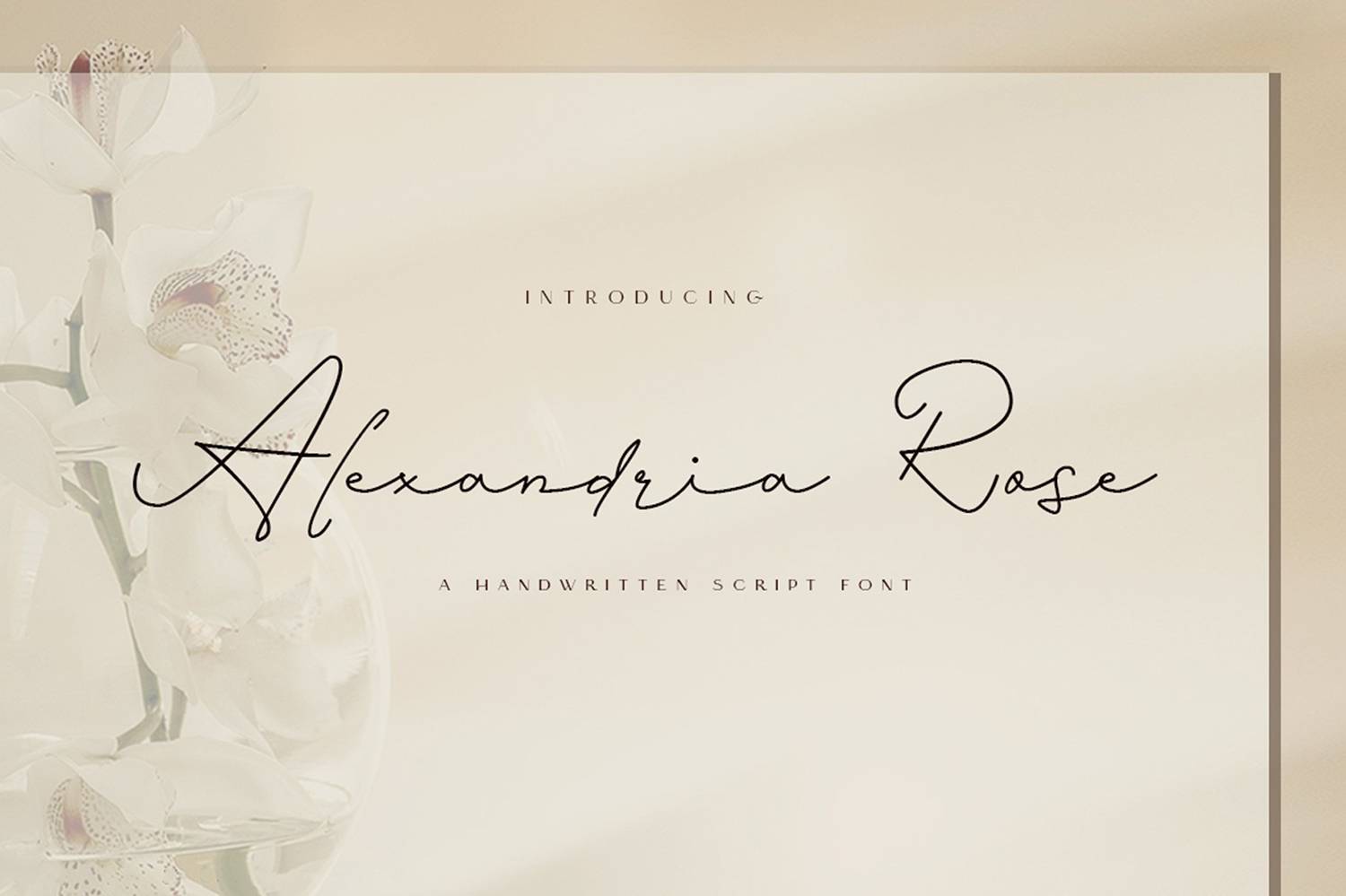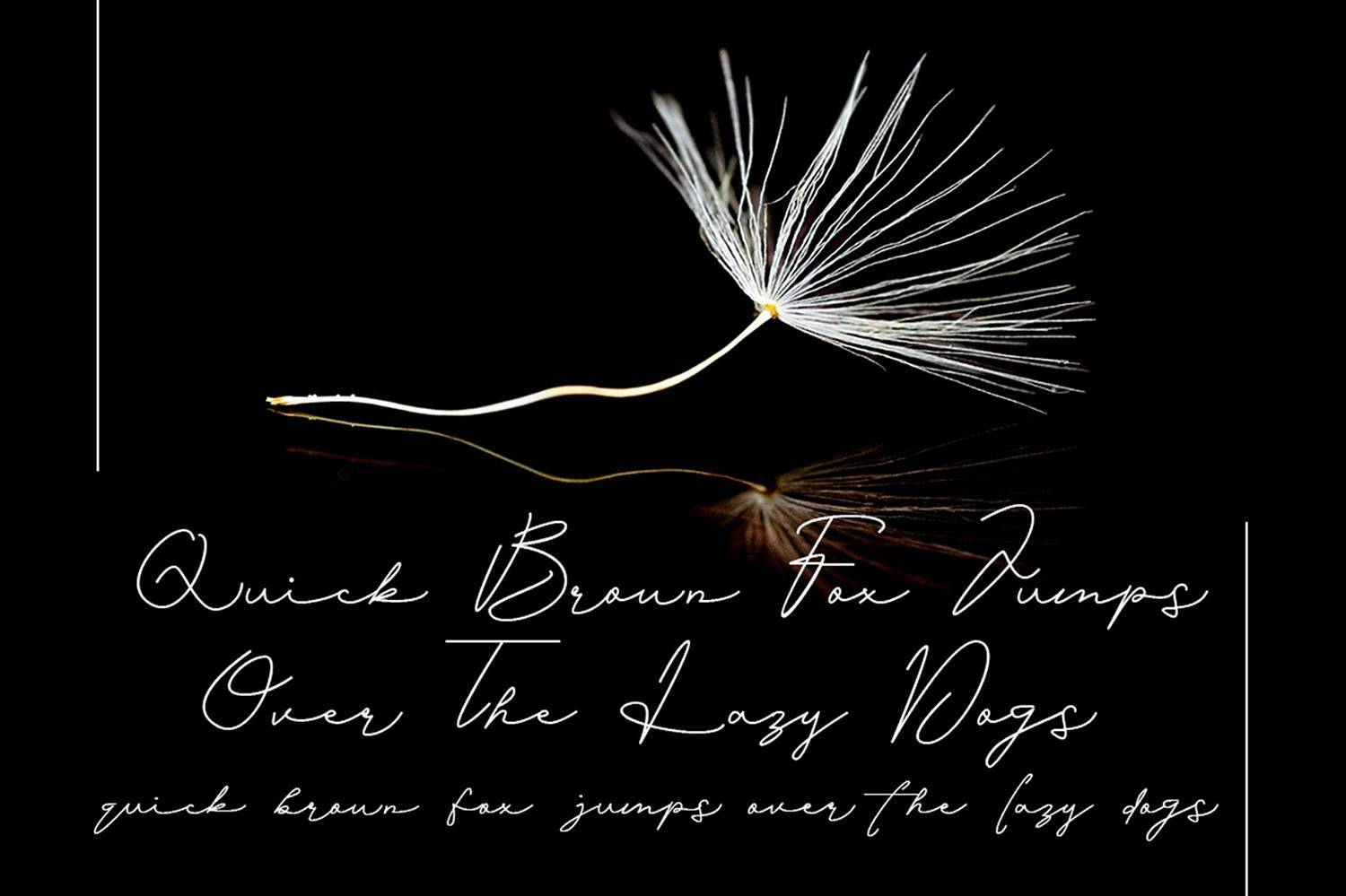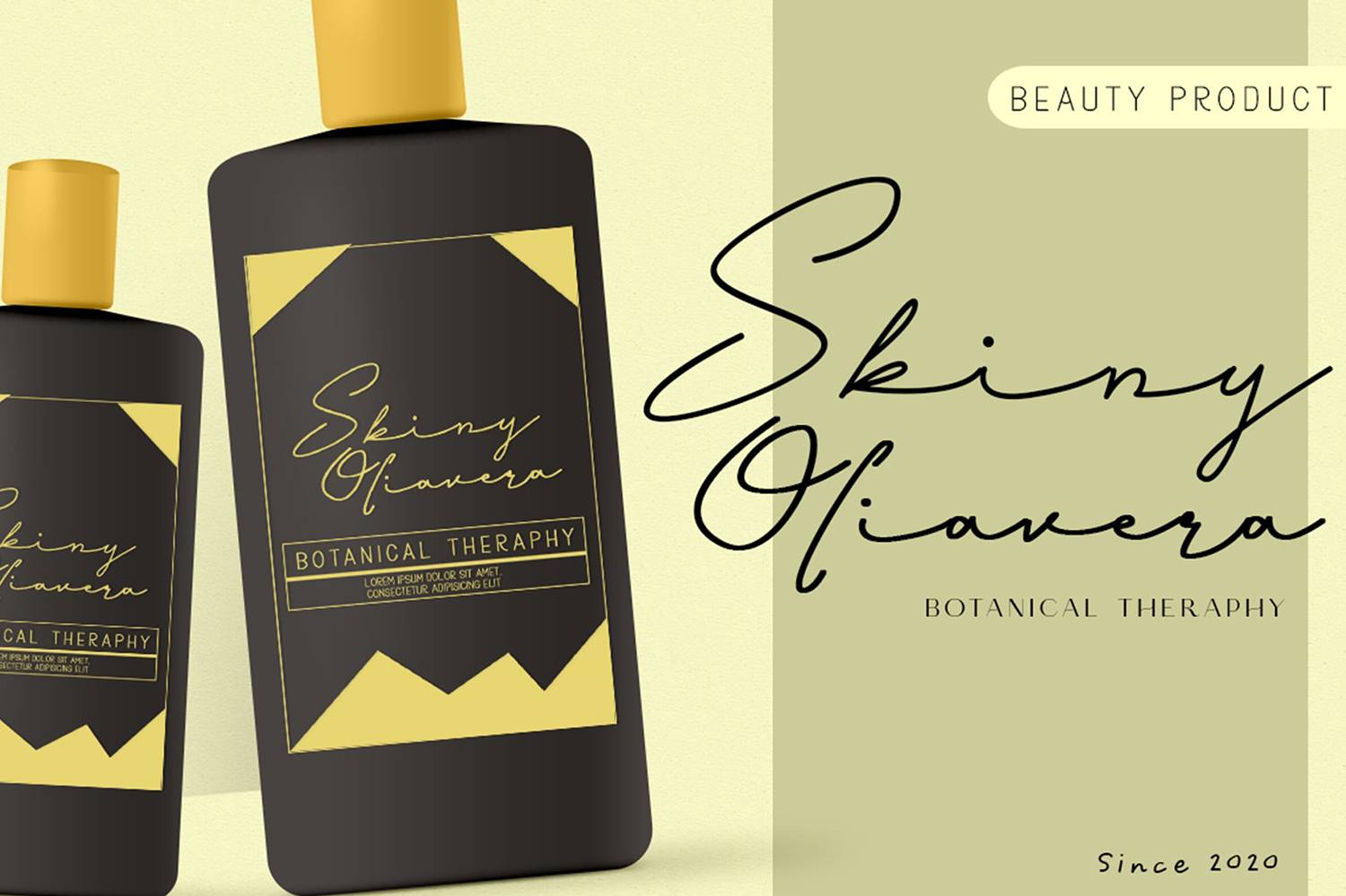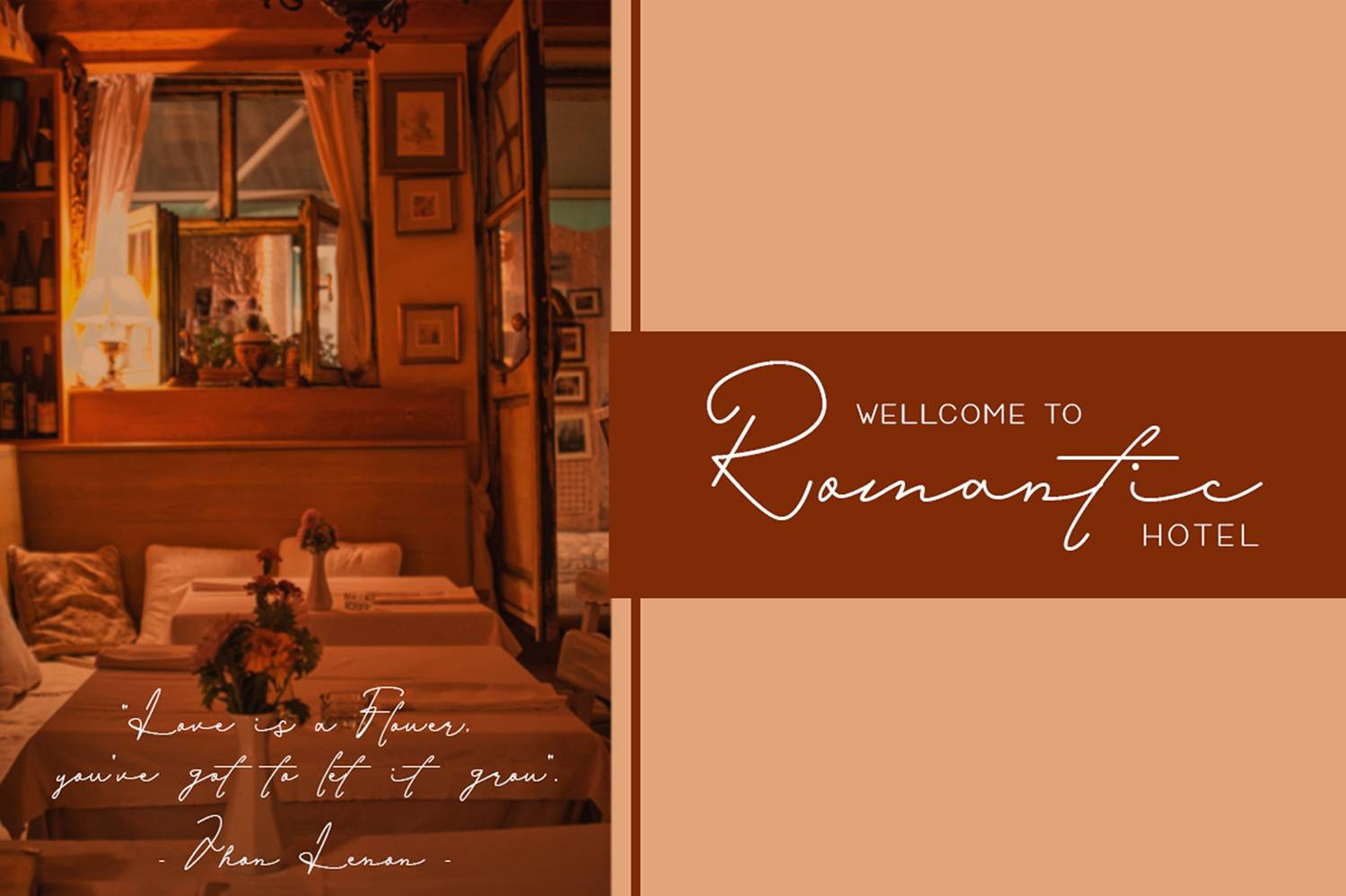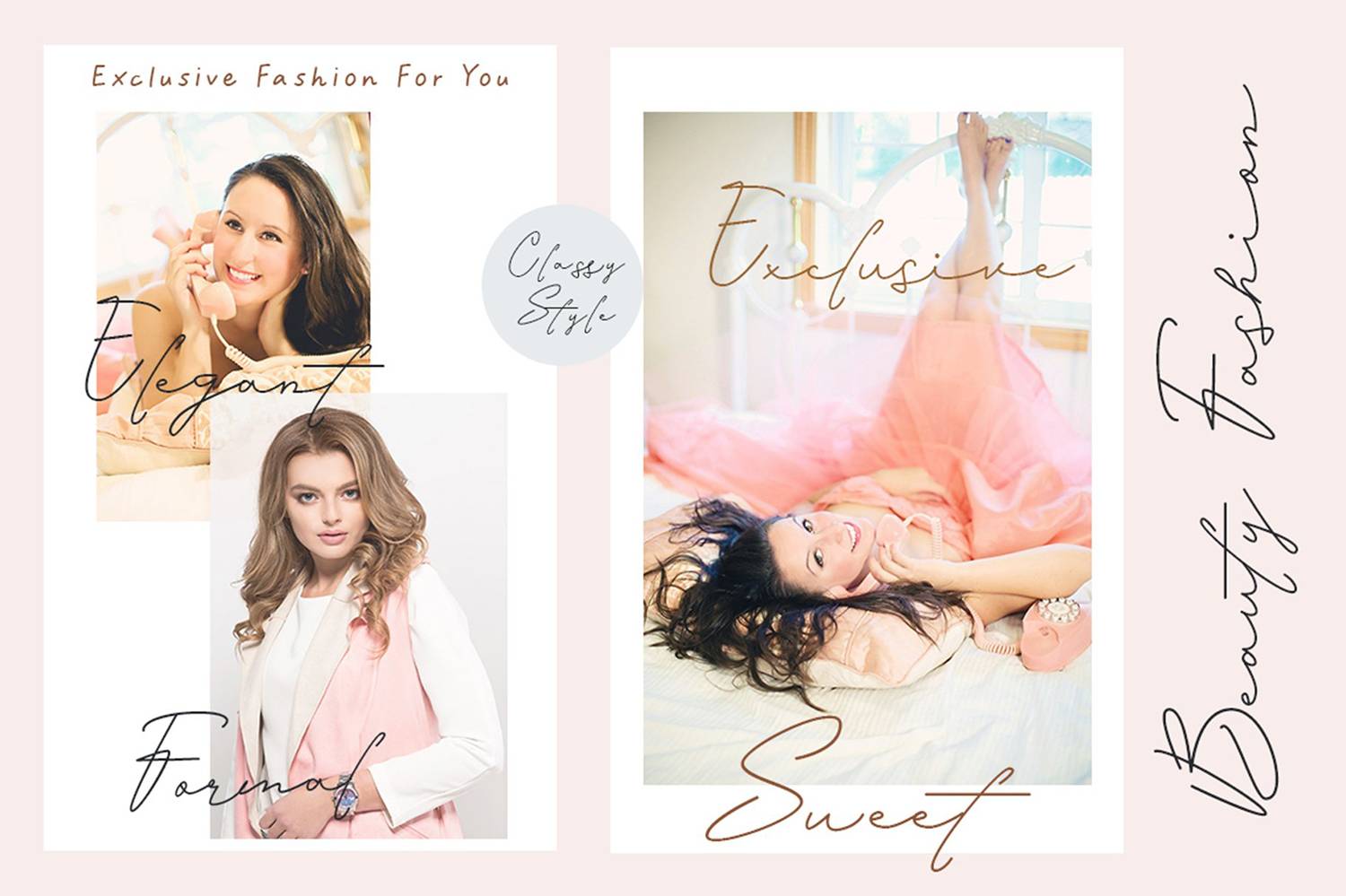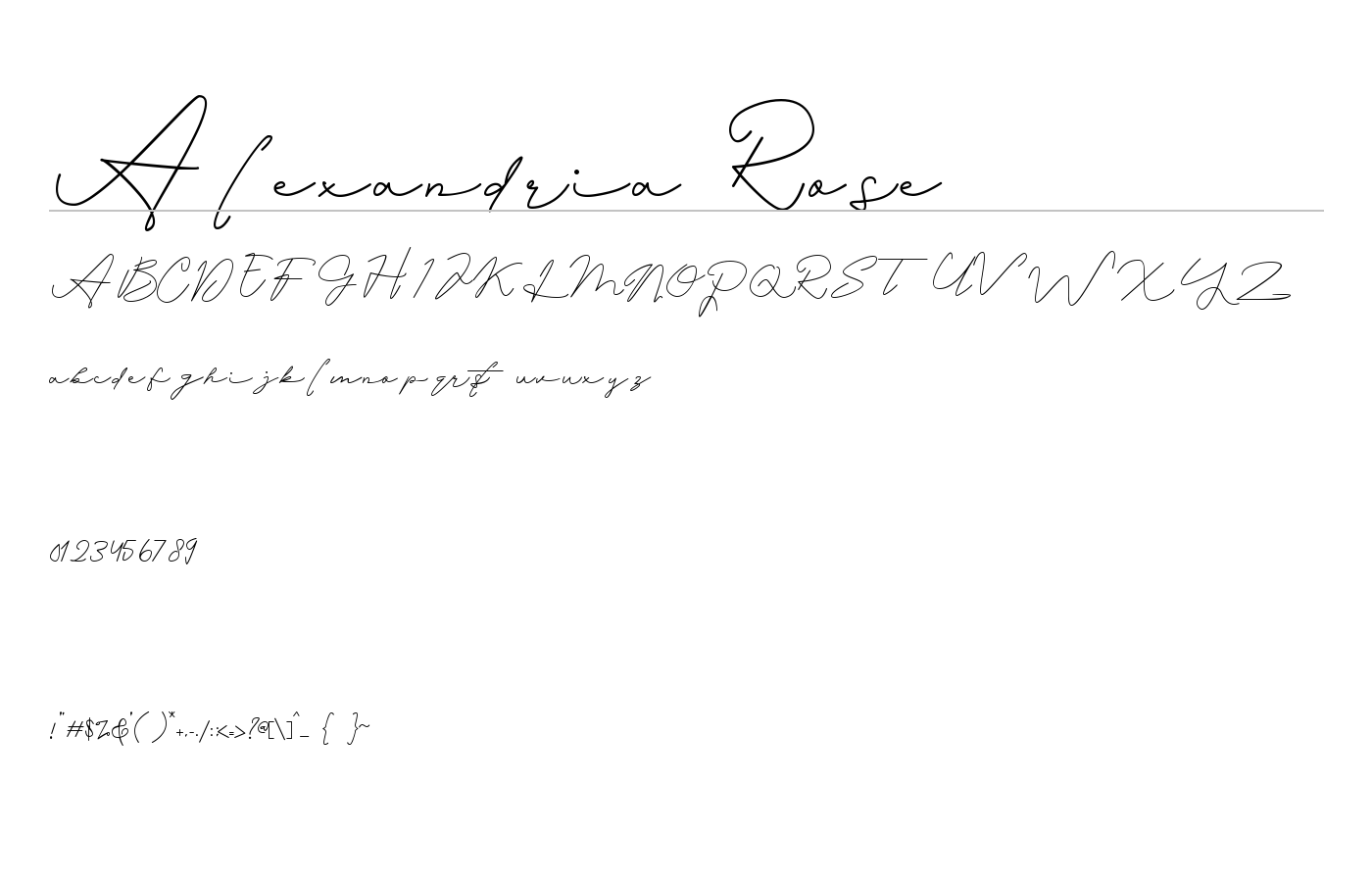
Alexandria Rose is an elegant handwritten script font characterized by its delicate, flowing strokes and fine weight, giving it a graceful and airy appearance. Its tall, slender letterforms and slightly irregular lines create a personal, sophisticated feel ideal for branding, invitations, and stylish editorial use where a touch of refined femininity is desired. This font brings charm and subtle luxury to designs that seek a modern yet intimate handwritten style.
Alexandria Rose Font
About Alexandria Rose Font
| Font family | Alexandria Rose Font |
| Designer | Wildan Suprian Syah |